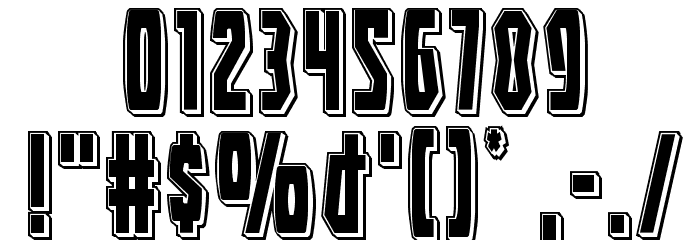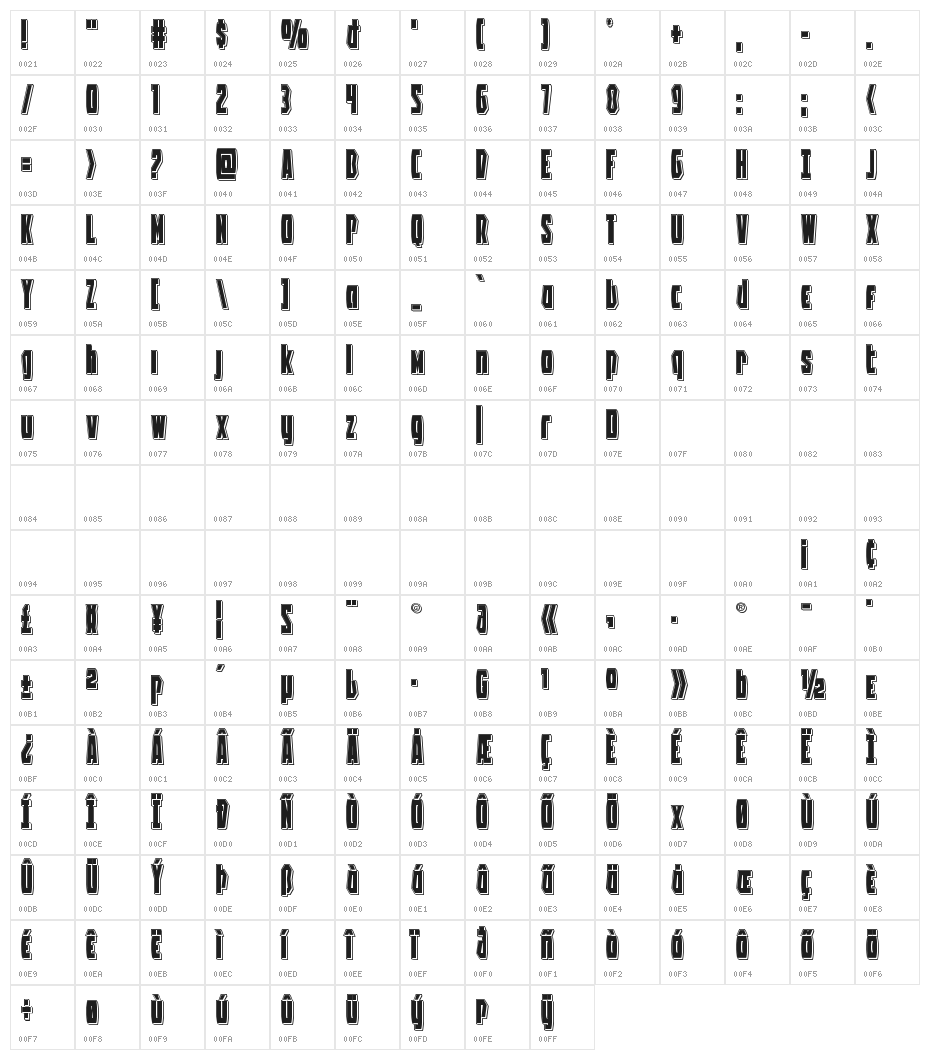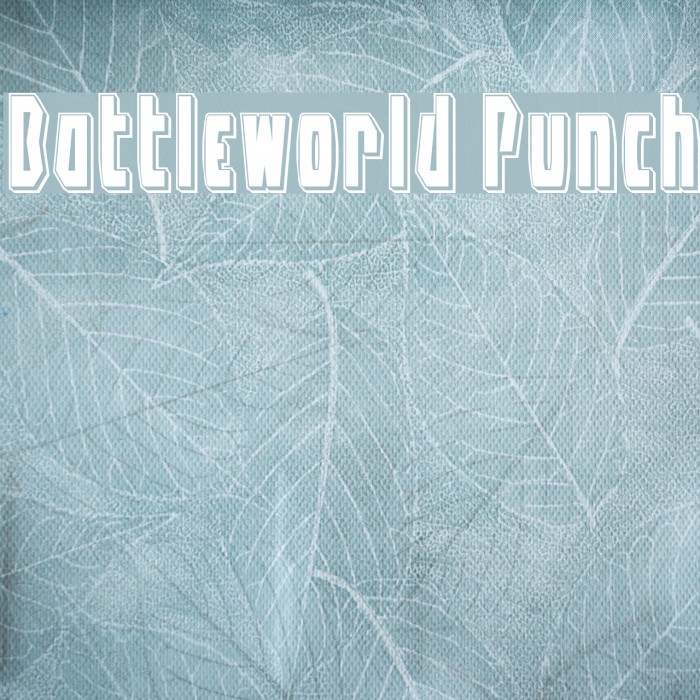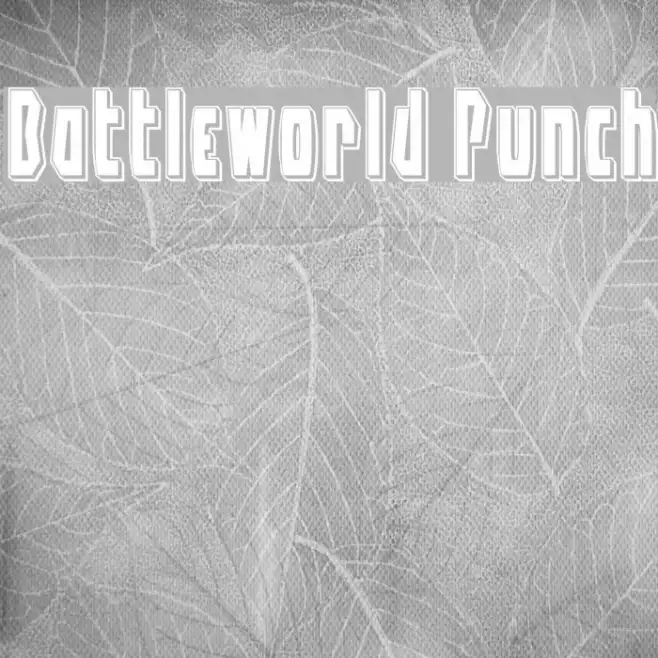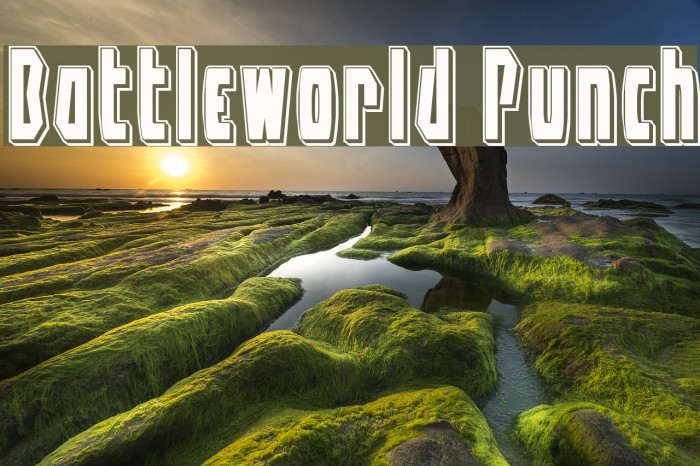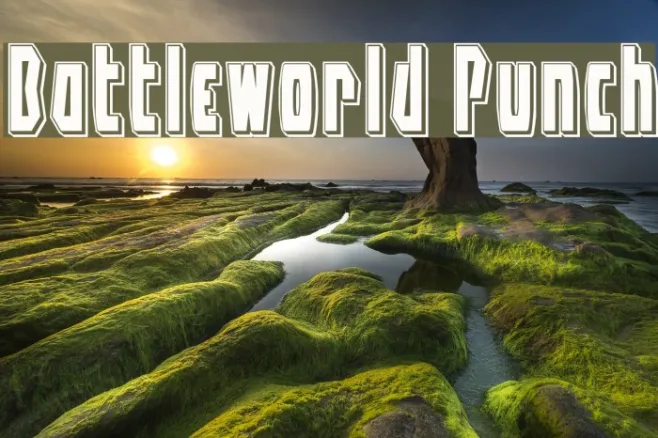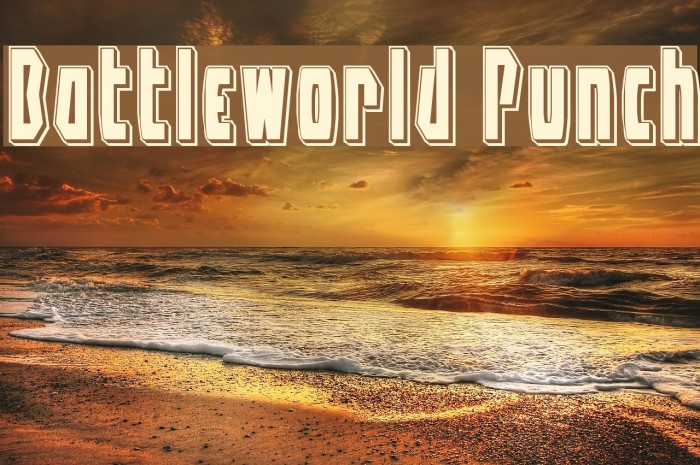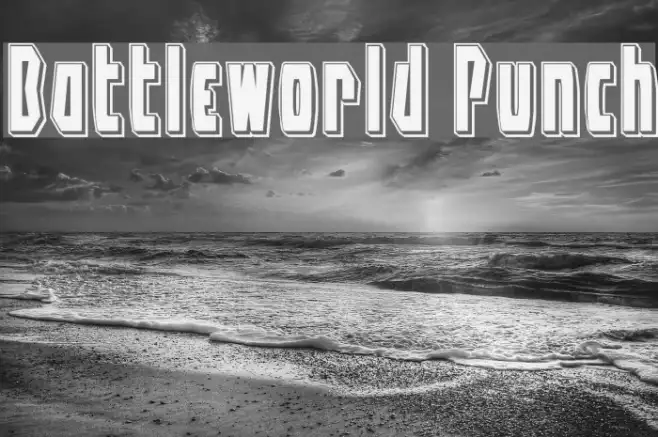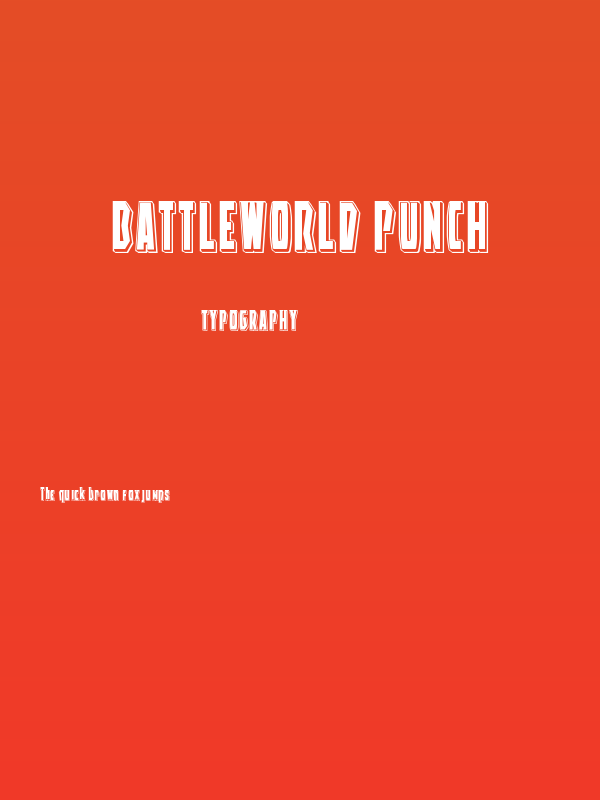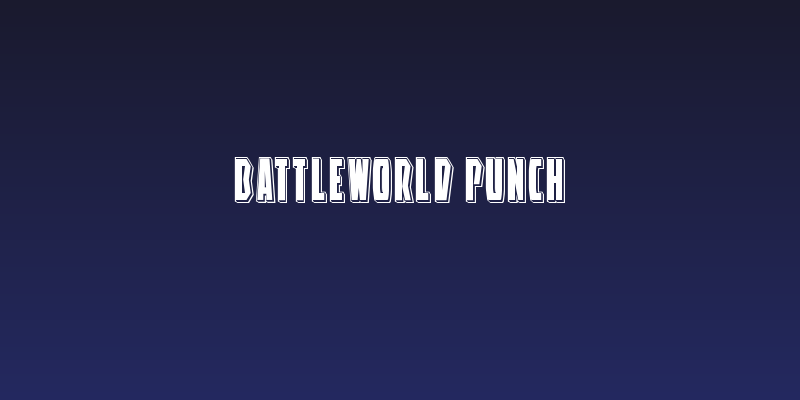
Battleworld Punch Font
Battleworld Punch Description
This font features a bold, impactful design with a strong presence. The characters are outlined with a thick border, giving them a three-dimensional appearance. The uppercase and lowercase letters maintain a consistent style, with sharp angles and geometric shapes. The numbers and special characters follow the same bold and structured design, ensuring uniformity across all glyphs. This font is ideal for projects that require a strong visual impact, such as posters, banners, or headlines. Its unique style makes it stand out, while the clear and legible characters ensure readability.
| Proposed Projects | Ideal for posters, banners, headlines, and any project needing a bold visual impact. |